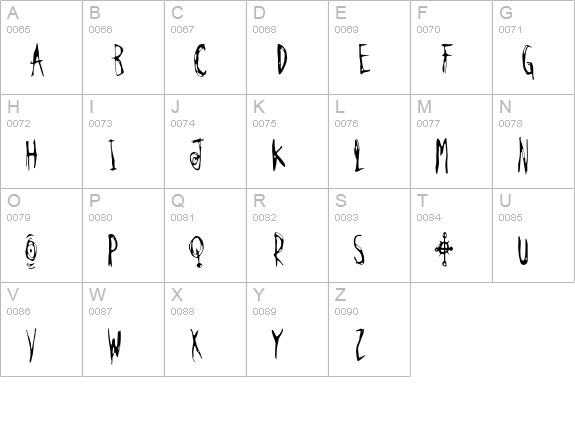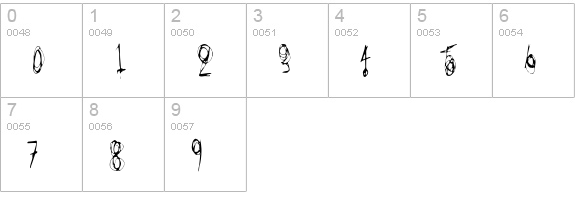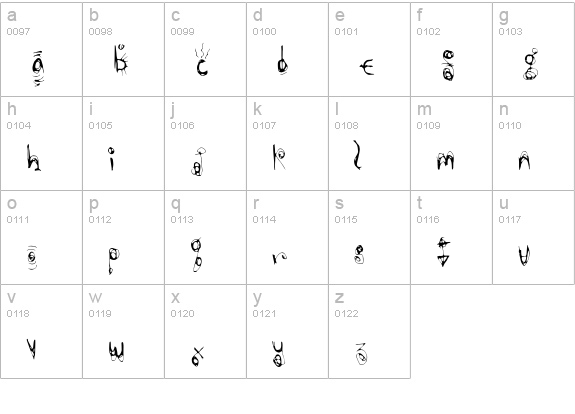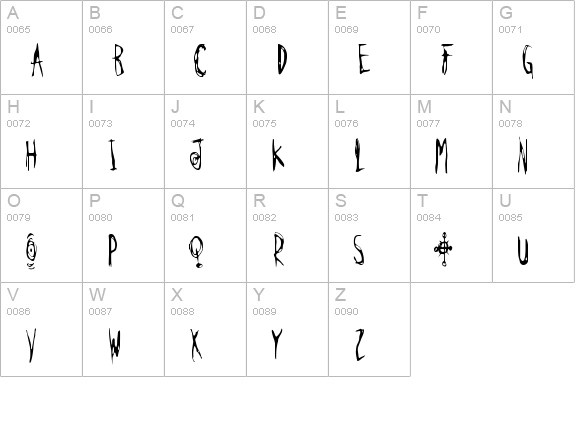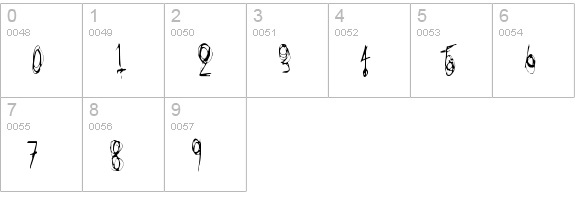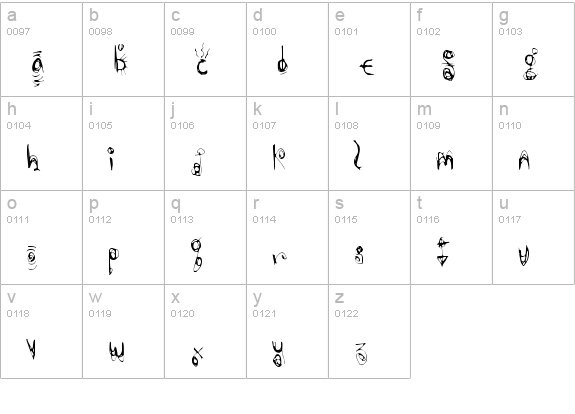
Carnival Font Details
Carnival font is a playful and whimsical typeface that brings a sense of fun and excitement to your designs. With its bold, colorful letters and unique shapes, Carnival font is perfect for adding a touch of festivity to invitations, posters, and more. Whether you're creating a party flyer or a birthday card, this lively font will surely make your text stand out. The best part? Carnival font is completely free to download at FontsMarket.com. This means you can add a festive flair to your projects without any cost. So go ahead and unleash your creativity with Carnival font today!